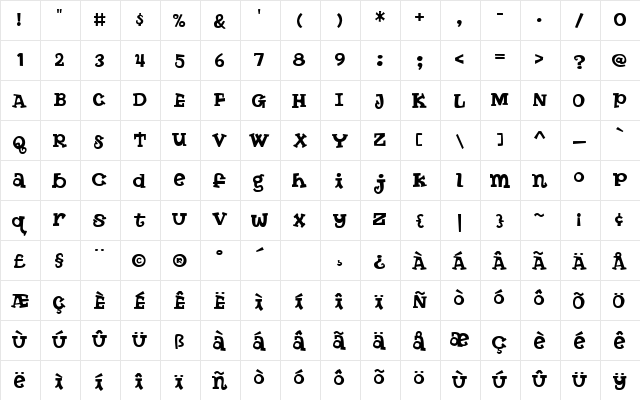
ButterFinger Serif Regular
Design Context for ButterFinger Serif Typeface
ButterFinger Serif brings classic typographic sensibility to the table — its serifs and measured letterforms reflect centuries of print heritage.
Pro Tip: Set ButterFinger Serif with slightly loose tracking in headlines to let each letterform's detail read clearly at display sizes.